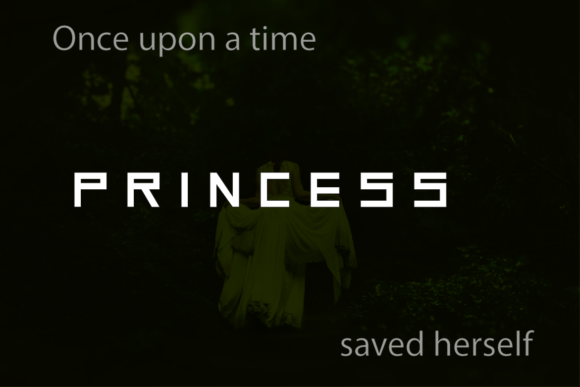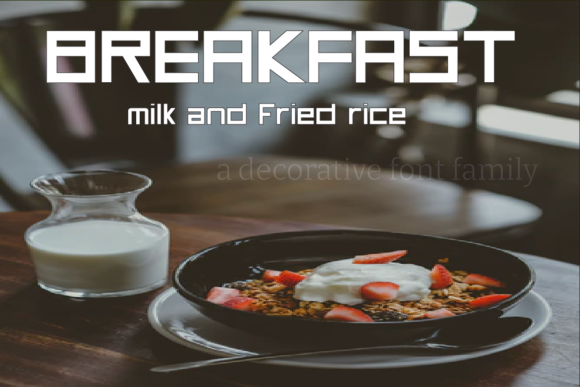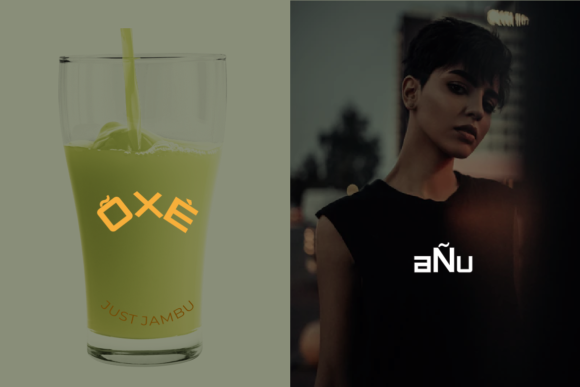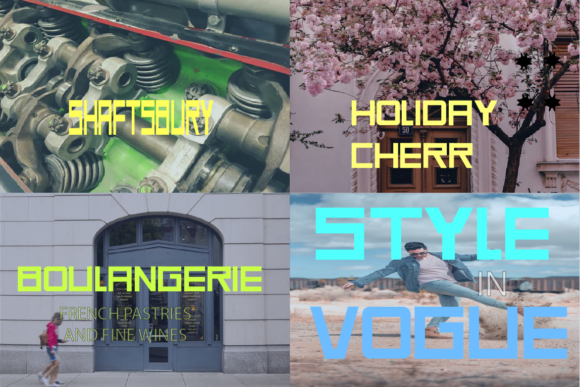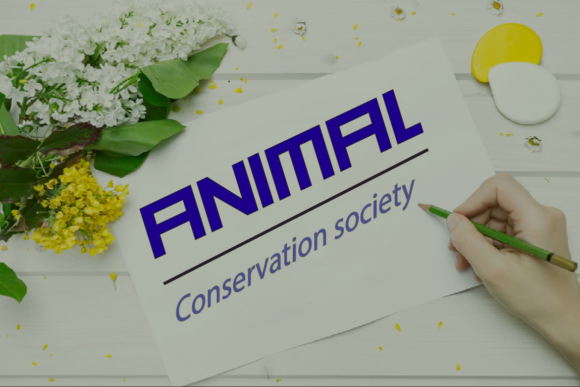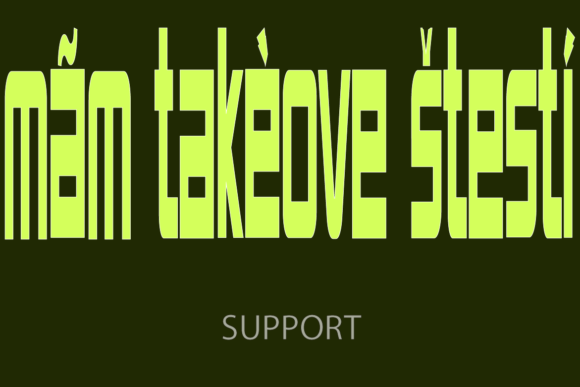
Discover the Faineant Font: Elevate Your Design with a Touch of Robotic Sophistication
Have you ever stared at a blank page, wondering what sparks your next creative project? Maybe it’s the hum of your computer, the glow of your screen, or the sound of your coffee machine – whatever it is, it’s about to inspire something amazing. For designers, finding that perfect font can be the difference between an ordinary design and an extraordinary one.
Enter the Faineant Font, a bold and futuristic display font that’s perfect for adding a unique touch to your web designs, business cards, or any other project that needs a bit of oomph. This font is not just a pretty face – it’s a versatile tool that can help you stand out from the crowd and make a lasting impression. With the Faineant Font, you’ll be able to add a touch of robotic sophistication to your designs, setting you apart from the rest.
Faineant Font Key Features
- Font Family: Faineant Font is a sans-serif font family designed for digital use.
- Font Sizes: Available in 5 different font sizes: Extra Light, Light, Regular, Medium, and Bold.
- Resolution: Designed for high-resolution displays, with optimal performance at 72 dpi to 300 dpi.
- Unique Characteristics: Faineant Font features a unique blend of modern and minimalist design elements, making it suitable for a wide range of applications, from digital interfaces to branding materials.
Faineant Font Review
I recently had the chance to work with the Faineant Font, and I have mixed feelings about it. Here’s my honest take:
The Faineant Font has a unique and elegant look to it. The subtle imperfections and quirks make it feel more human and less robotic.
The font is highly versatile and can be used for a wide range of projects, from branding to editorial content.
The font is highly legible, even at small sizes, making it a great choice for digital applications.
The Faineant Font may not be the best choice for projects that require a bold or attention-grabbing font. It’s more suited for subtle, sophisticated designs.
The font may not be suitable for projects that require a lot of text to be displayed at once. The subtle imperfections can start to feel overwhelming at large text sizes.
Overall, I think the Faineant Font is a great addition to any designer’s toolkit. While it may not be the best choice for every project, it’s a versatile and elegant font that can add a unique touch to a wide range of designs.
Faineant Font Practical Application Guide
Faineant Font is particularly well-suited for use in creative and artistic projects, such as invitations, posters, and infographics. It’s also a great choice for use in branding and marketing materials, such as business cards and brochures. Experiment with Faineant Font to add a touch of elegance and sophistication to your designs.
Alternatives to Faineant Font
Playfair Display is an elegant, high-end serif font ideal for luxury brands, fashion, and high-end publications. It features intricate details and ornaments, making it perfect for creating a sense of sophistication and refinement.
Compared to Faineant Font, Playfair Display has a more traditional and formal feel, while Faineant Font has a more modern and minimalist aesthetic. Playfair Display is best used for titles and headings where a touch of luxury is desired.
Montserrat is a sans-serif font designed for urban environments, perfect for modern cities and contemporary designs. It features a geometric and clean design, making it ideal for digital and print materials where a sense of modernity is desired.
Compared to Faineant Font, Montserrat has a more geometric and modern feel, while Faineant Font has a more handwritten and casual aesthetic. Montserrat is best used for body text and digital displays where a clean and modern look is desired.